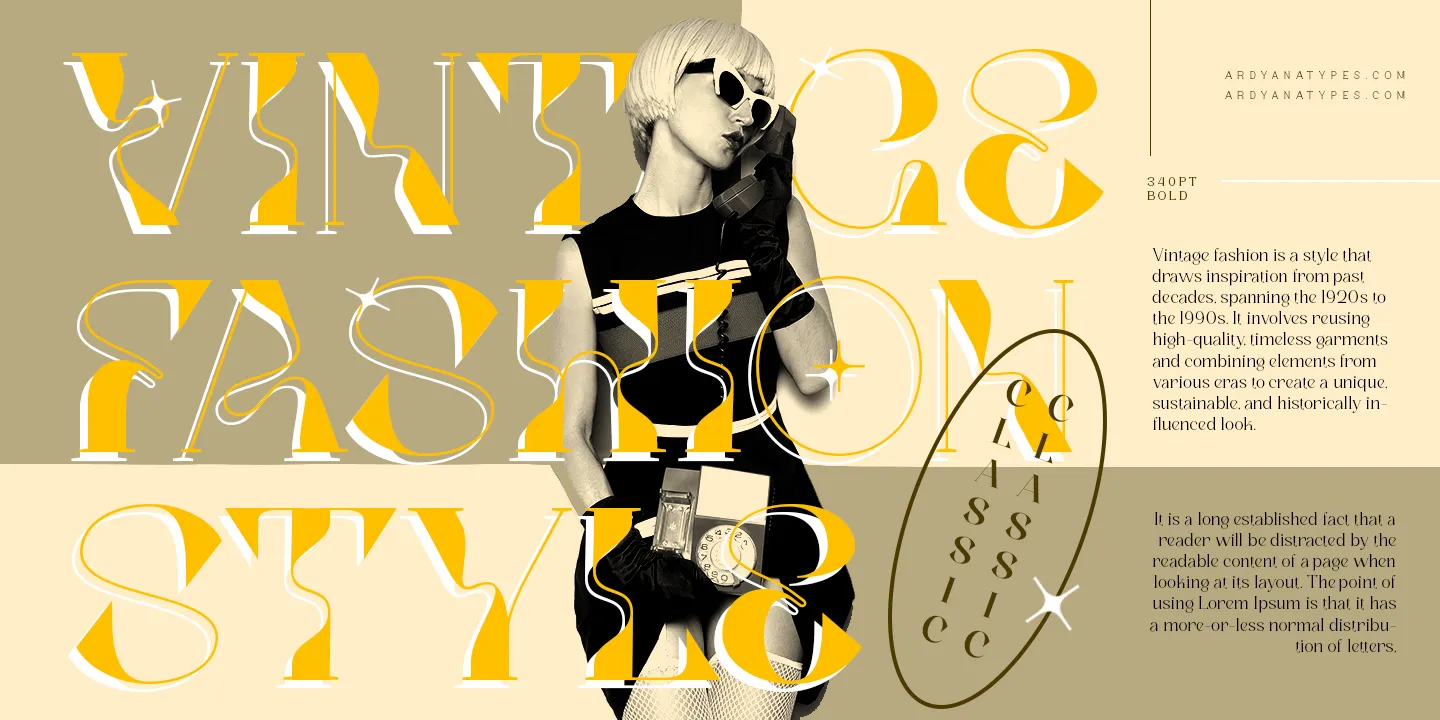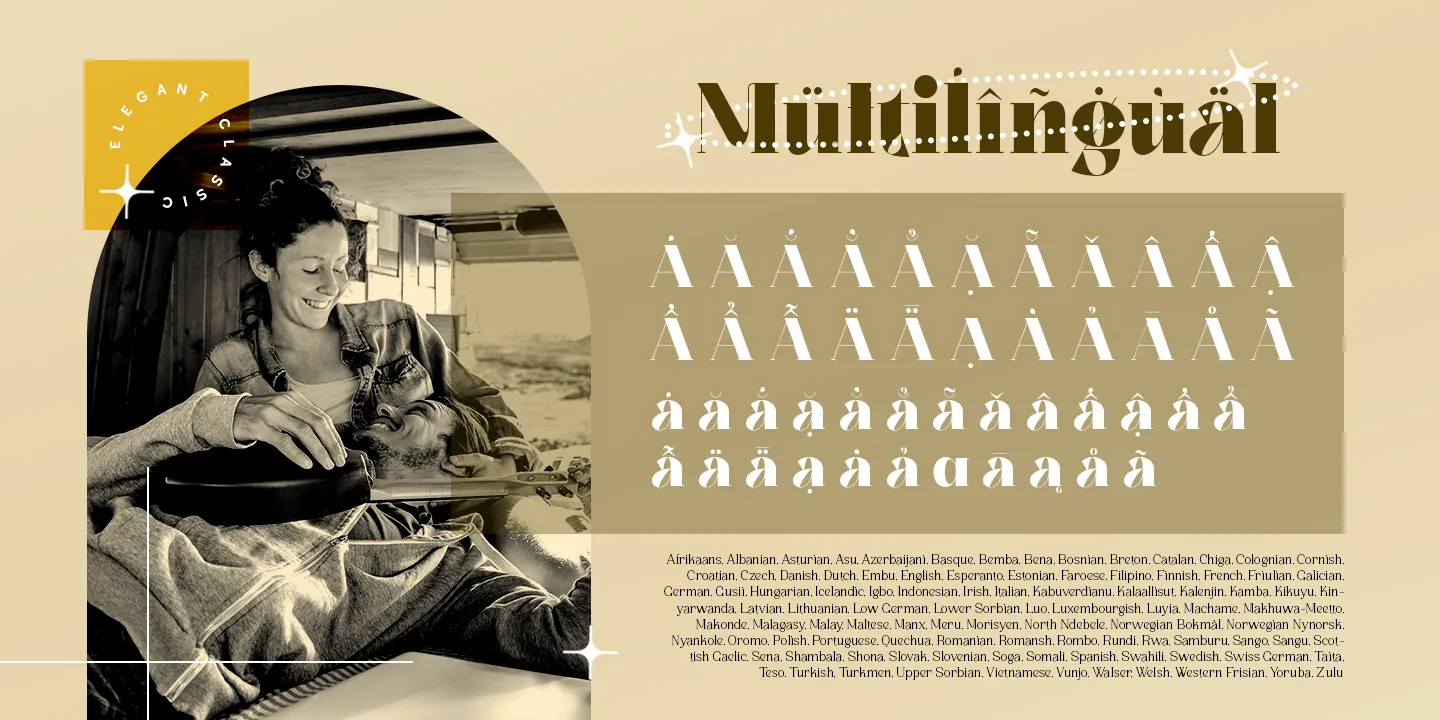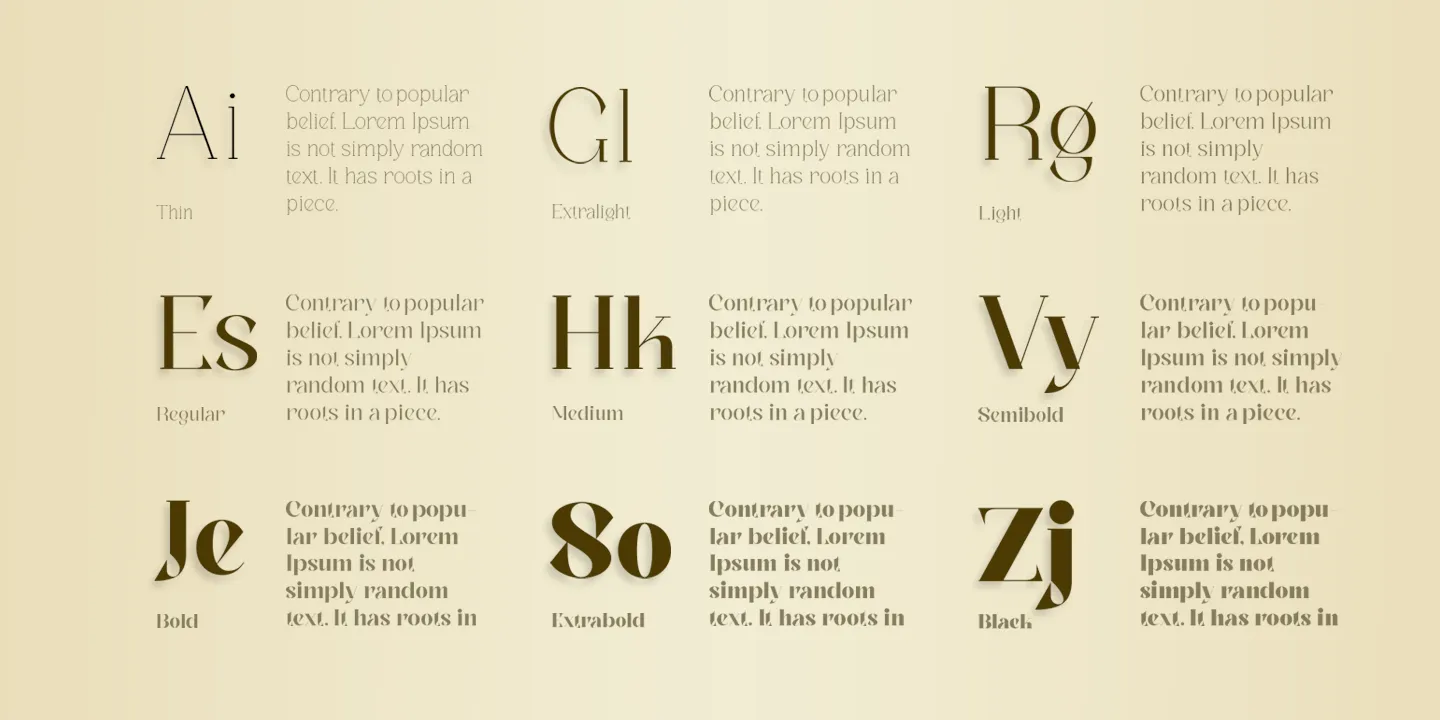
Giom Mod - Display Font
9 Styles
Giom Mod is a unique and elegant display font with a distinctive serif style. This font offers nine different thickness options, ranging from Thin to Black, providing a wide range of choices for various applications. Each thickness of Giom Mod has its own unique characteristics, allowing you to select the one that best suits your design aesthetics. For example, Thin may be suitable for light and elegant designs, while Black can be used for more dramatic and bold appearances.
Furthermore, Giom Mod comes equipped with various OpenType features. These include features such as ligatures, which allow specific characters to combine beautifully, and alternative letterforms that provide more design options. With these features, you can create more engaging and unique text elements in your designs.
Additionally, Giom Mod is designed to support multiple languages, making it suitable for use in many countries. This makes it highly versatile and appropriate for a wide range of multilingual design projects.
So, if you are looking for a font that combines the beauty of serif with various thickness options, useful OpenType features, and multilingual support, Giom Mod is the perfect choice to meet your design needs.